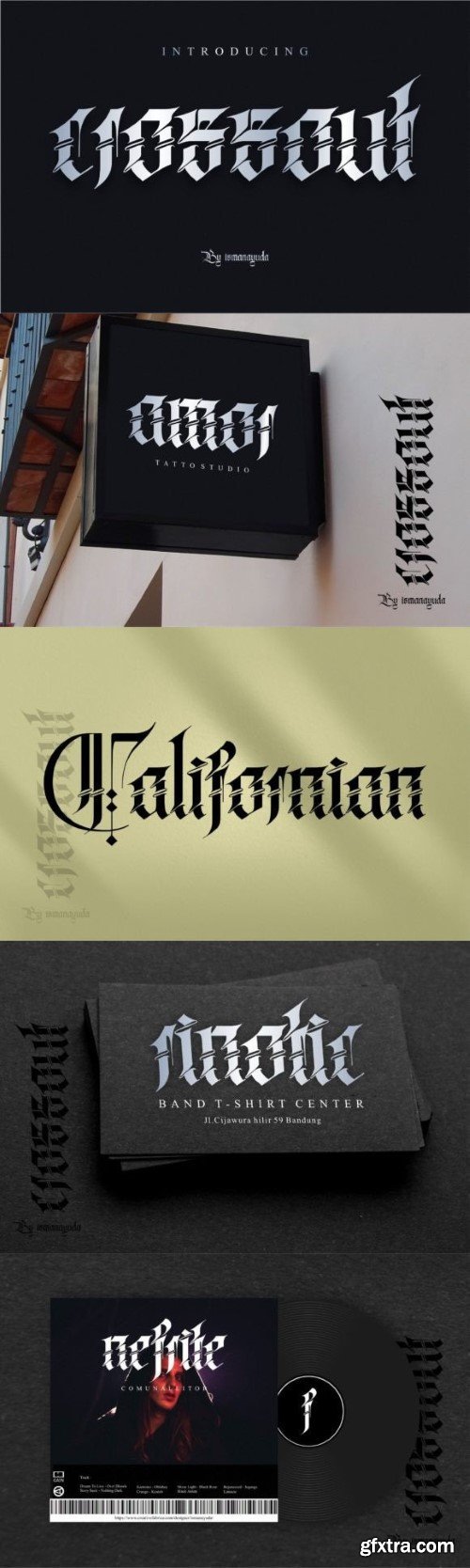
Crossout is a stylish blackletter font that marries tradition with a contemporary edge. Its bold, angular letterforms convey a sense of history and craftsmanship, while subtle modern touches make it relevant for a wide range of design applications. Whether used in branding, posters, or packaging, Crossout commands attention and evokes a sense of heritage and authenticity.